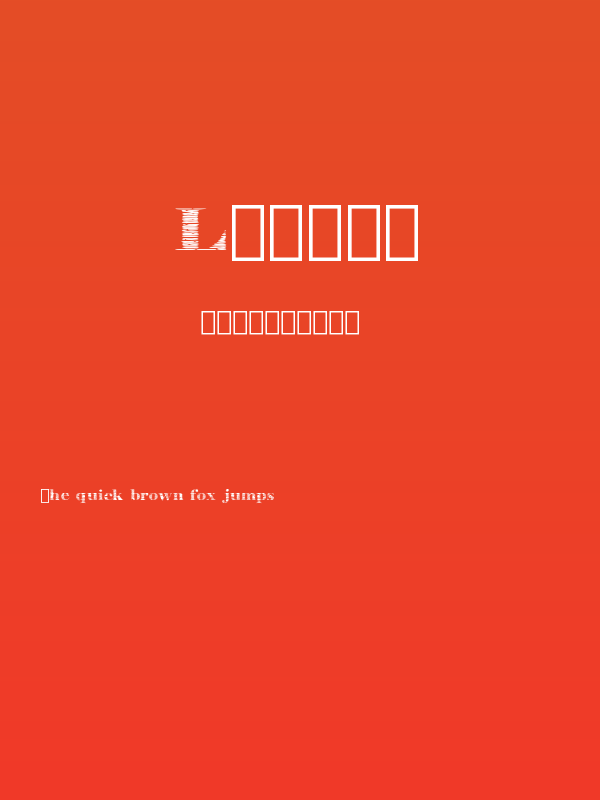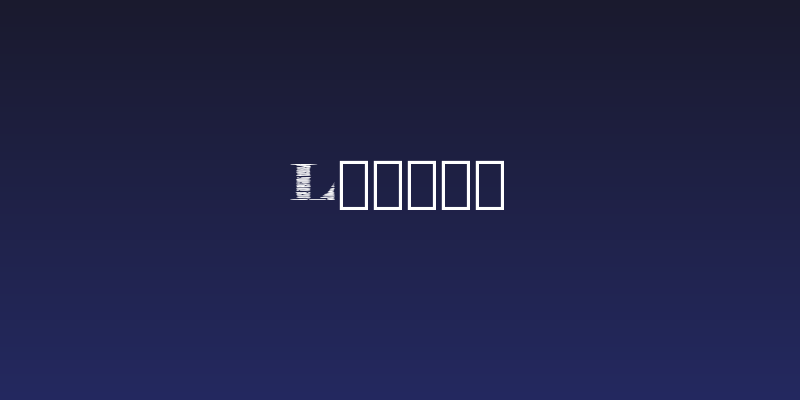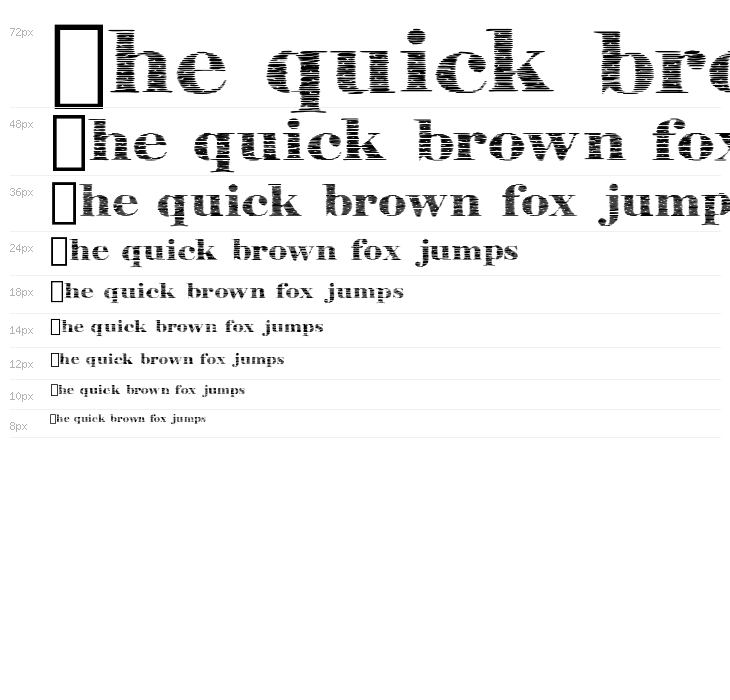
Layers Font
Layers Description
This font features a distinctive textured appearance, characterized by horizontal lines that create a dynamic, layered effect. The uppercase and lowercase letters maintain a bold presence, with each character exhibiting a unique, hand-drawn quality. The font's design is reminiscent of vintage printing techniques, offering a sense of depth and movement. The overall style is both artistic and eye-catching, making it suitable for creative projects that require a standout typographic element. The font's playful yet sophisticated look makes it versatile for various design applications.
| Overall Style | Vintage, Artistic |
| Proposed Projects | Ideal for posters, album covers, branding, and artistic projects that require a bold, textured look. |